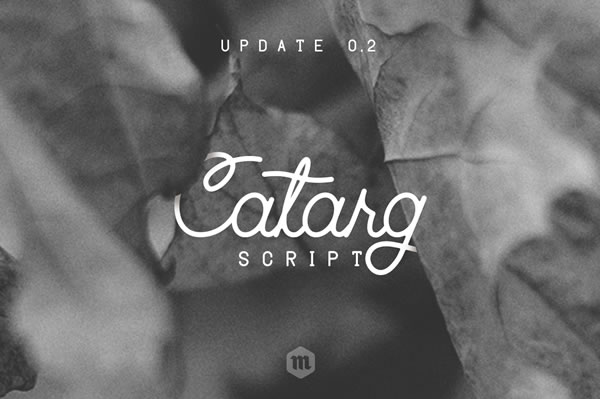
Embark on a typographic journey with Catarg, a captivating script font family that captures the essence of vintage charm. Inspired by traditional hand-lettering, Catarg effortlessly evokes a sense of nostalgia and authenticity. Its elegant curves and delicate flourishes lend a touch of timeless sophistication to any design project.
Unleash your creativity and let Catarg take you back to the golden age of handwritten correspondence. Whether you're crafting heartfelt love letters, designing enchanting invitations, or creating captivating marketing materials, Catarg will add a touch of elegance and personality to your words. Each glyph has been meticulously crafted to retain the charm and idiosyncrasies of traditional script lettering, ensuring that your designs exude a sense of authenticity and craftsmanship.
With Catarg, you'll have the power to transform your digital creations into tangible works of art. Its natural hand-lettered style adds a personal touch that resonates with your audience, forging a deeper connection between your brand and your customers. Embrace the allure of handwritten elegance and make a lasting impression with every design you create.
Catarg's versatility knows no bounds. It seamlessly adapts to a wide range of design applications, from logos and branding to website design and social media graphics. Its ability to effortlessly blend with various aesthetics makes it a true creative chameleon. Whether you're working on a whimsical children's book, a sophisticated wedding invitation, or a modern fashion campaign, Catarg will elevate your designs to new heights of visual appeal.
Don't settle for ordinary fonts that fail to capture your brand's unique personality. Embark on a typographic adventure with Catarg and let your creativity soar. Its captivating charm and versatility will transform your designs into unforgettable experiences that leave a lasting impression on your audience. Embrace the art of handwritten elegance and make your mark in the world of design with Catarg.